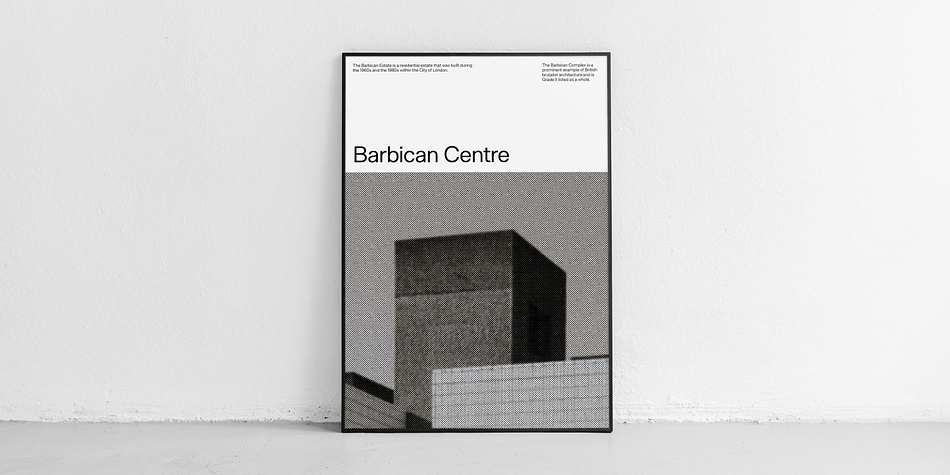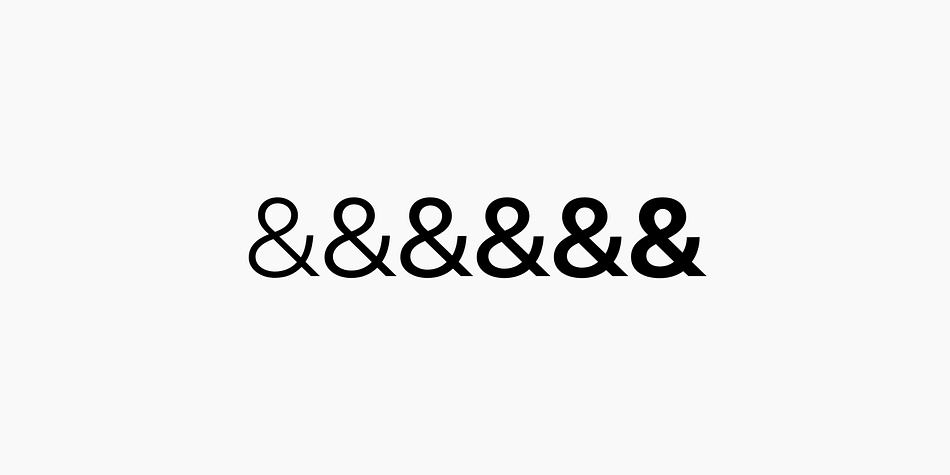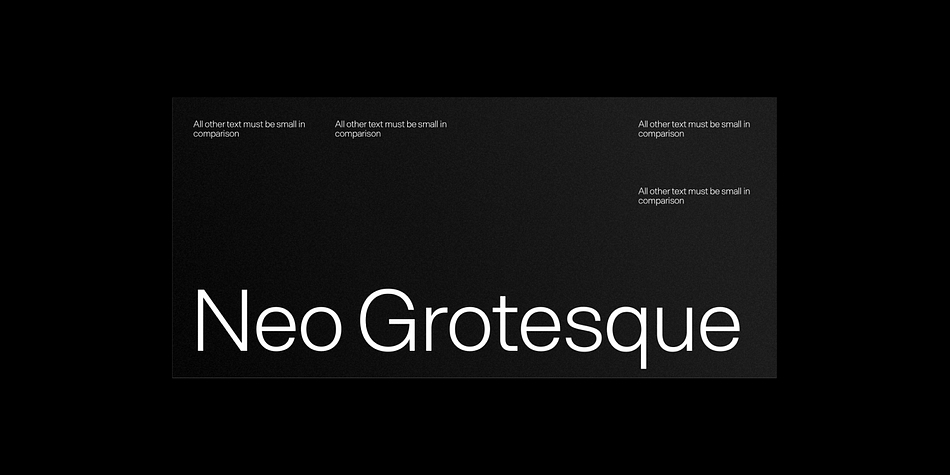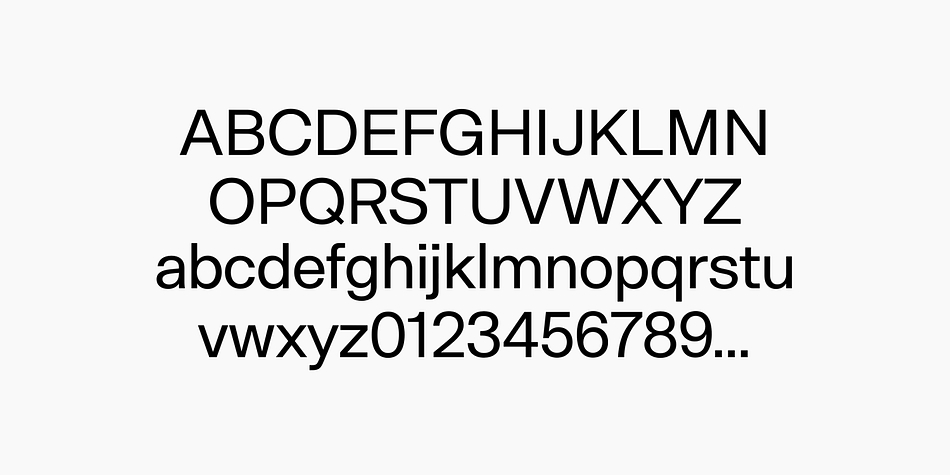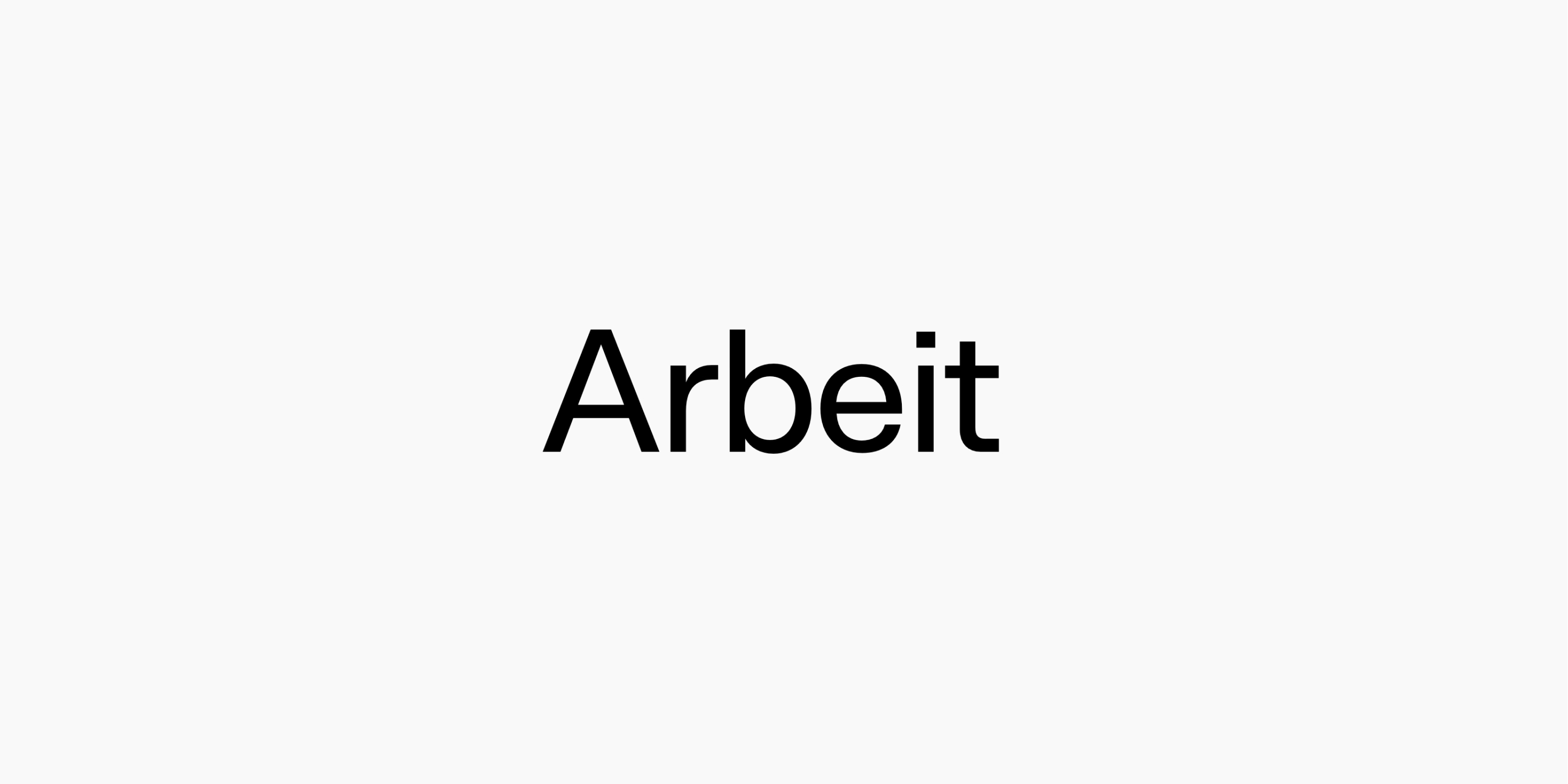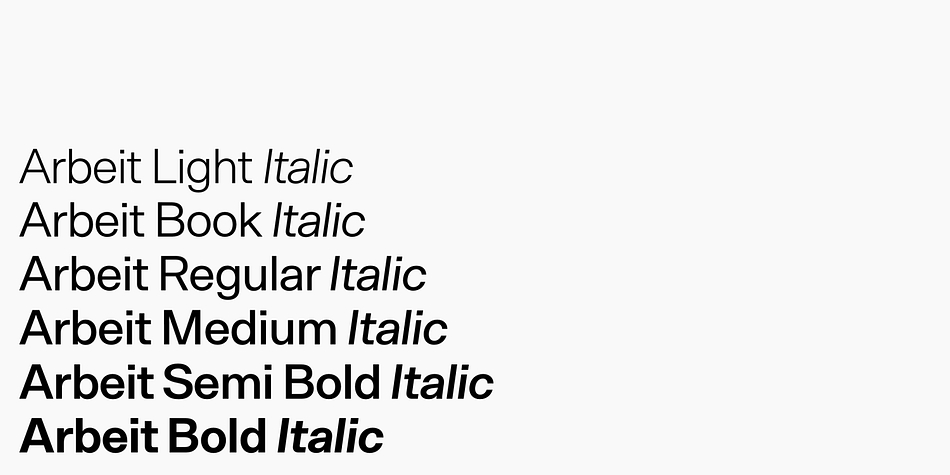
Arbeit
Arbeit is a sans serif font family. This typeface has thirteen styles and was published by Studio Few.
Arbeit is a functional Neo-Grotesque typeface. A variable version of the font is included with the complete family.